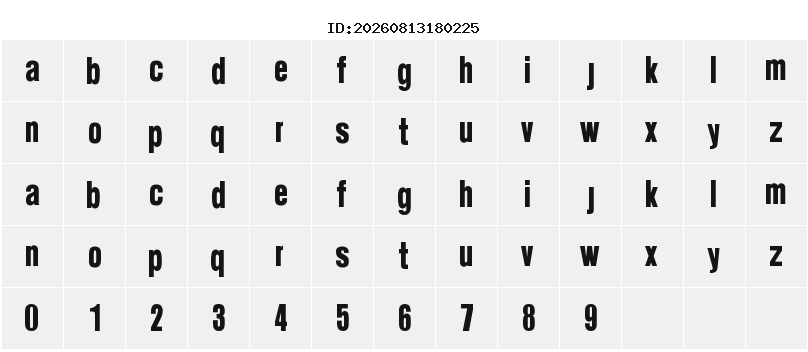
About suede.ttf
suede.ttf is a modern, elegant sans-serif font designed for ultimate readability and visual harmony. Perfect for branding, headlines, web design, and print materials.